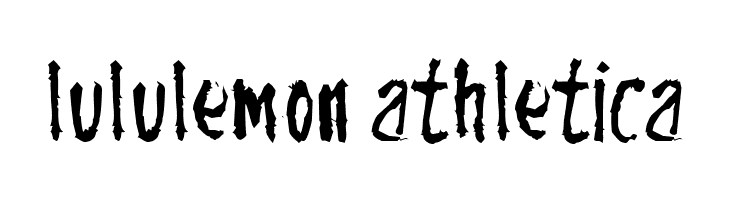
Revenge Team Font
- Font: Revenge Team
( Fonts by Rob Dobi - Toxic Type - www.dobi.nu )
A bold, abstract font with jagged, irregular edges and a graffiti-like style.